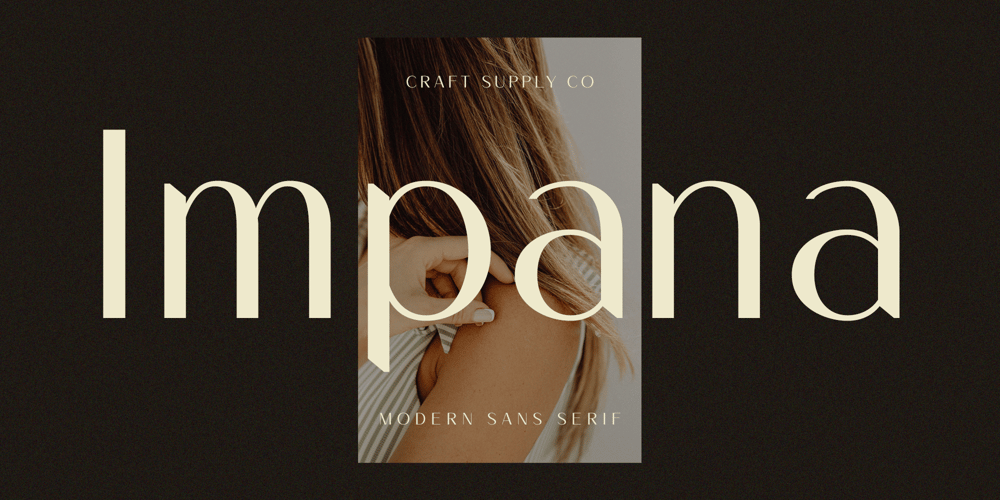
Impana
Impana font
Impana Font Family was designed by Trio Nazzar Saputra, Wahyu Hadi Yuana and published by Craft Supply Co. Impana contains 2 styles and family package options. Introducing Impana: A modern sans-serif font that redefines contemporary design. With its sleek lines and versatile style, Impana brings a fresh perspective to modern aesthetics.This typeface is ideal for greeting card, packaging, brand identity, poster, or any purpose to make your design project look eye catching and trendy. Feel free to play with this typeface!